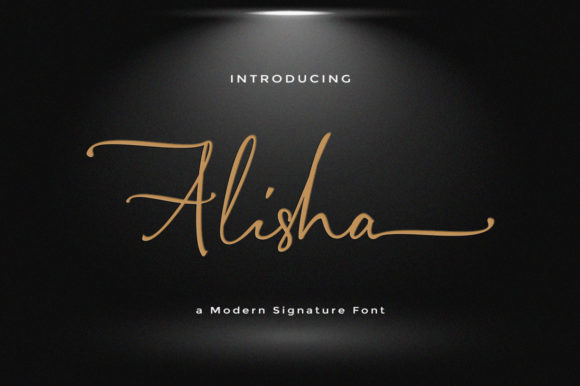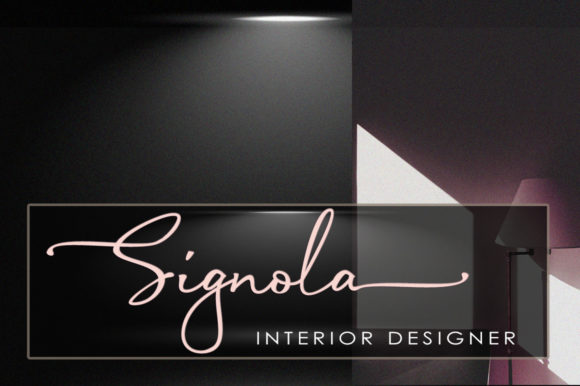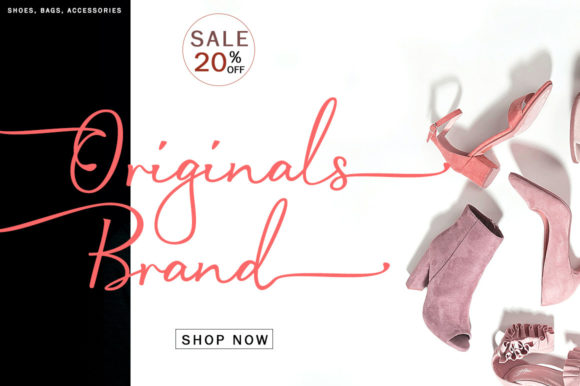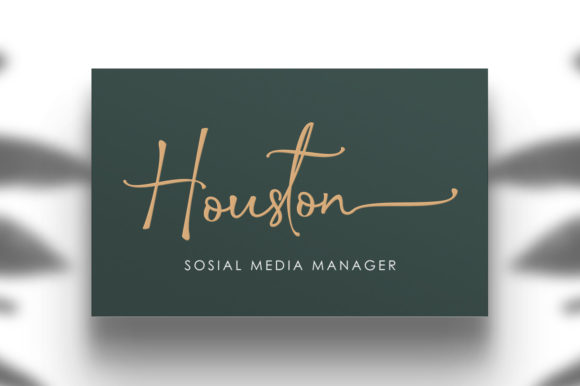
Alisha Signature Font
About Alisha Signature Font
Alisha Signature feels equally charming and elegant. It looks stunning on wedding invitations, thank you cards, quotes, greeting cards, logos, business cards and every other design which needs a customized touch.